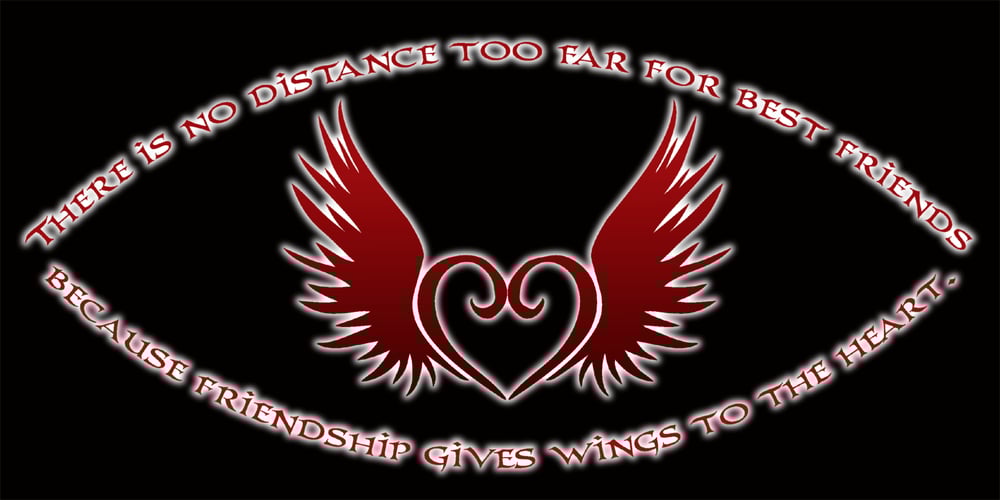
PR Hearts Take Wing 01 Font Family was designed by Peter Rempel and published by PR Fonts. PR Hearts Take Wing 01 contains 1 styles and family package options. Hearts, and wings are both powerful symbols.The heart represents the seat of the emotions, and Wings represent movement upward, even spiritually, in the case of angel wings. These images have been drawn with a brush, some of them on rough paper, and are available as a black or white version.